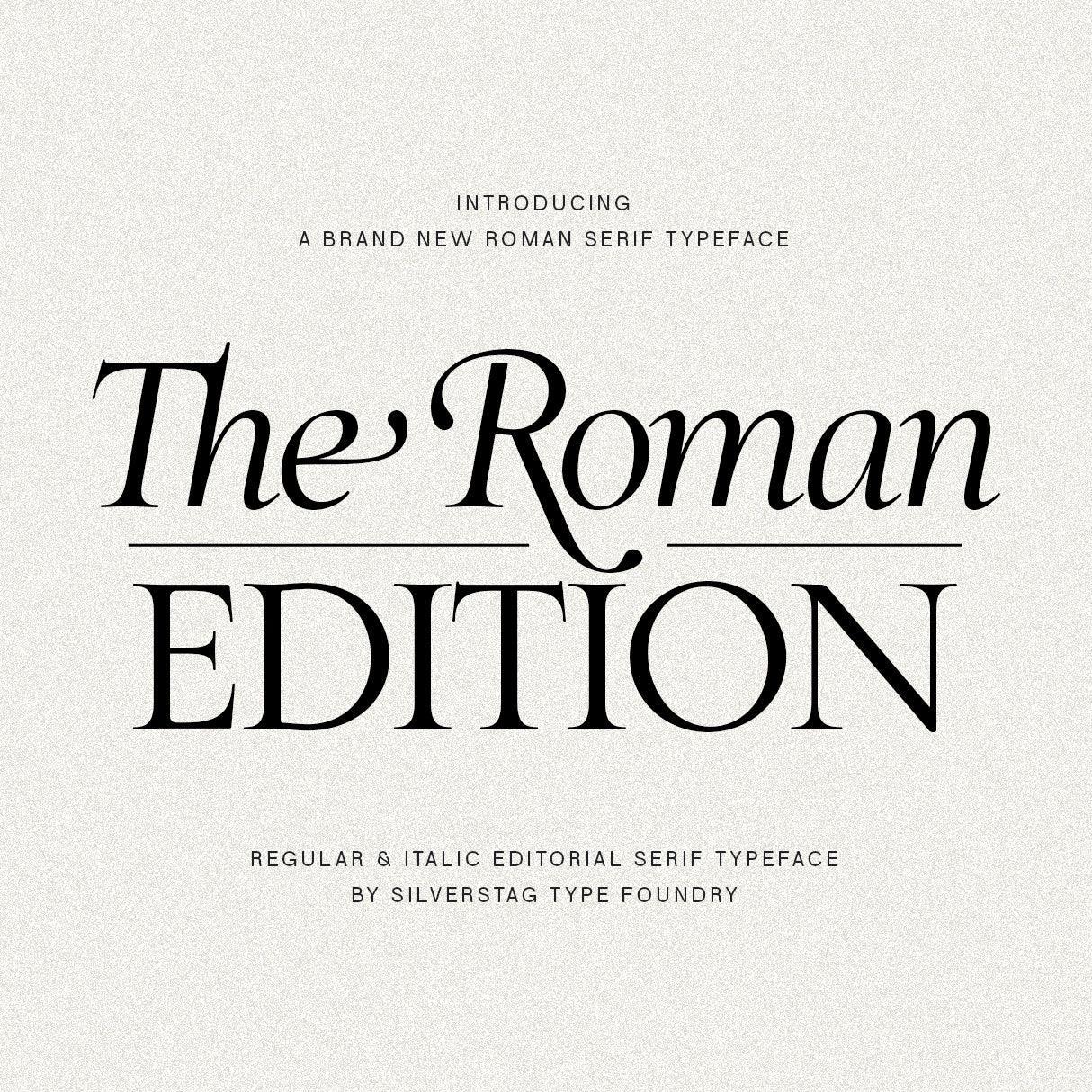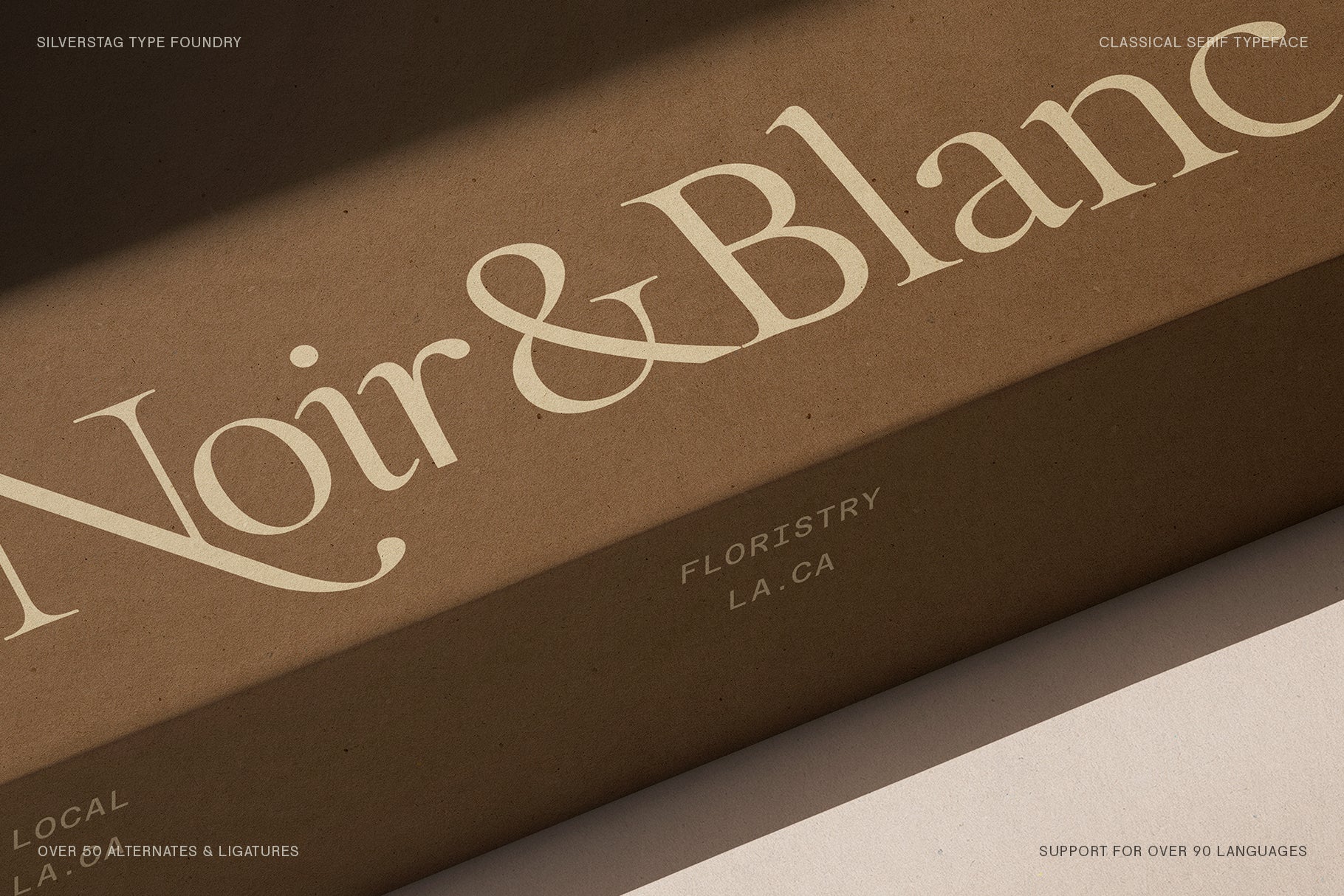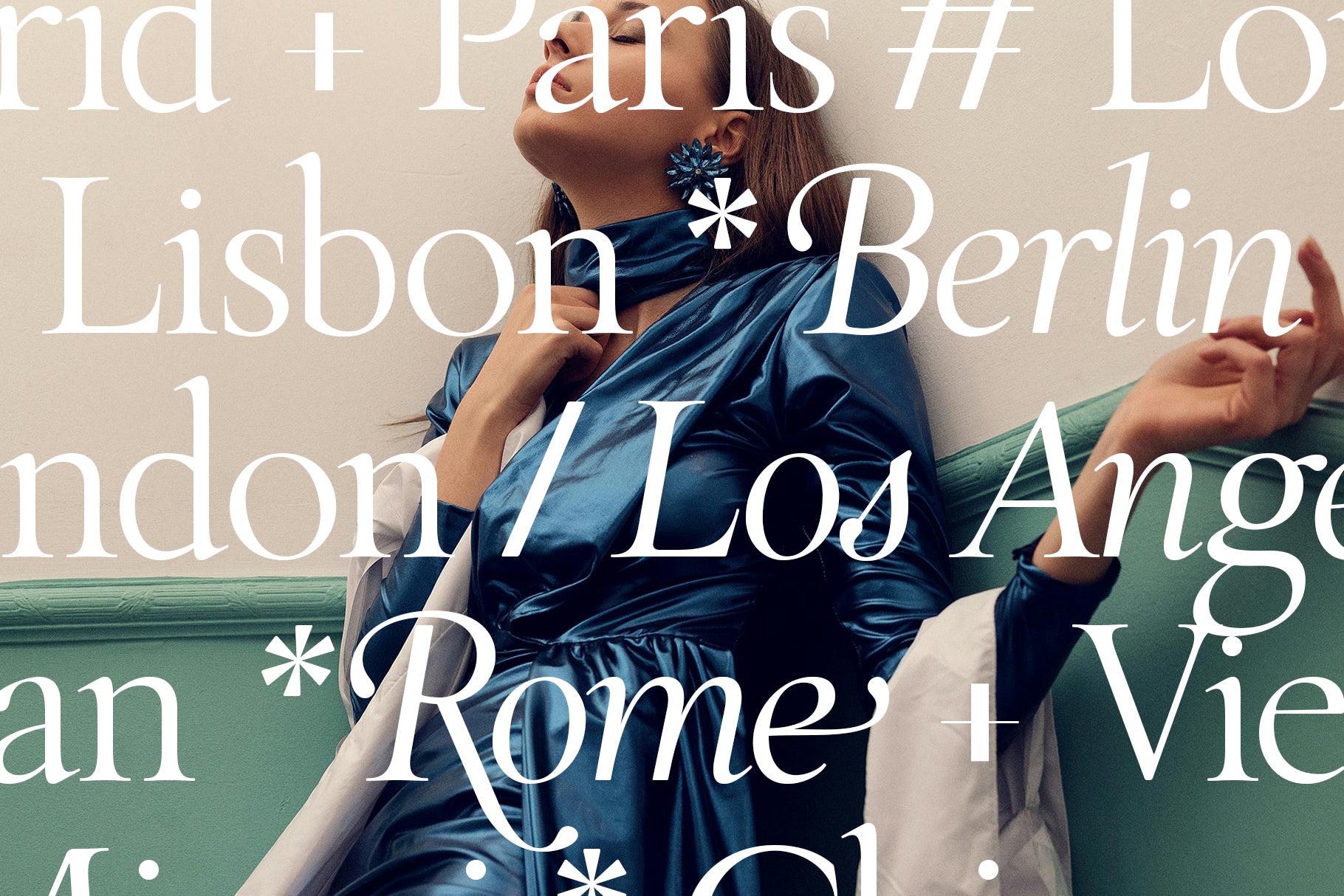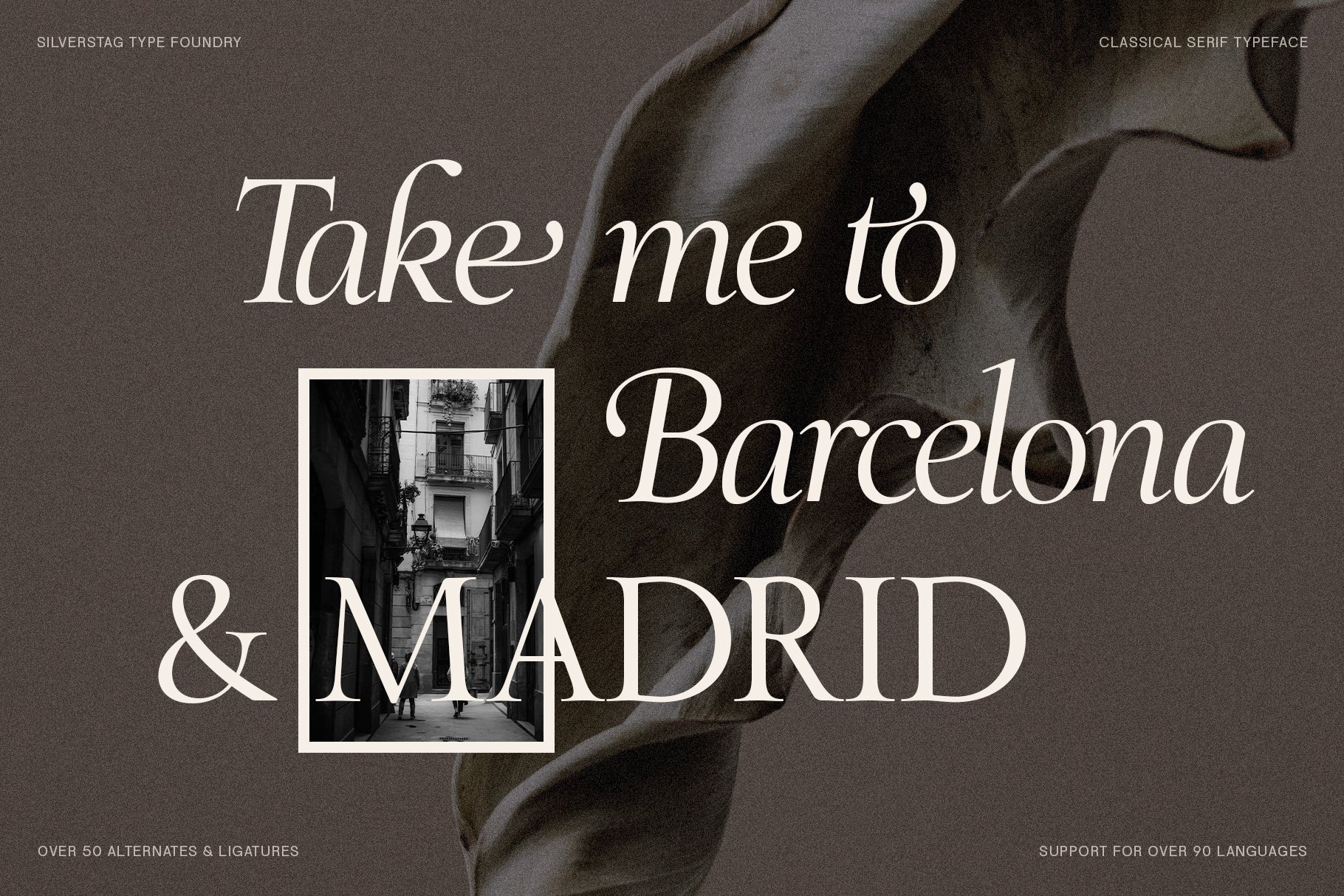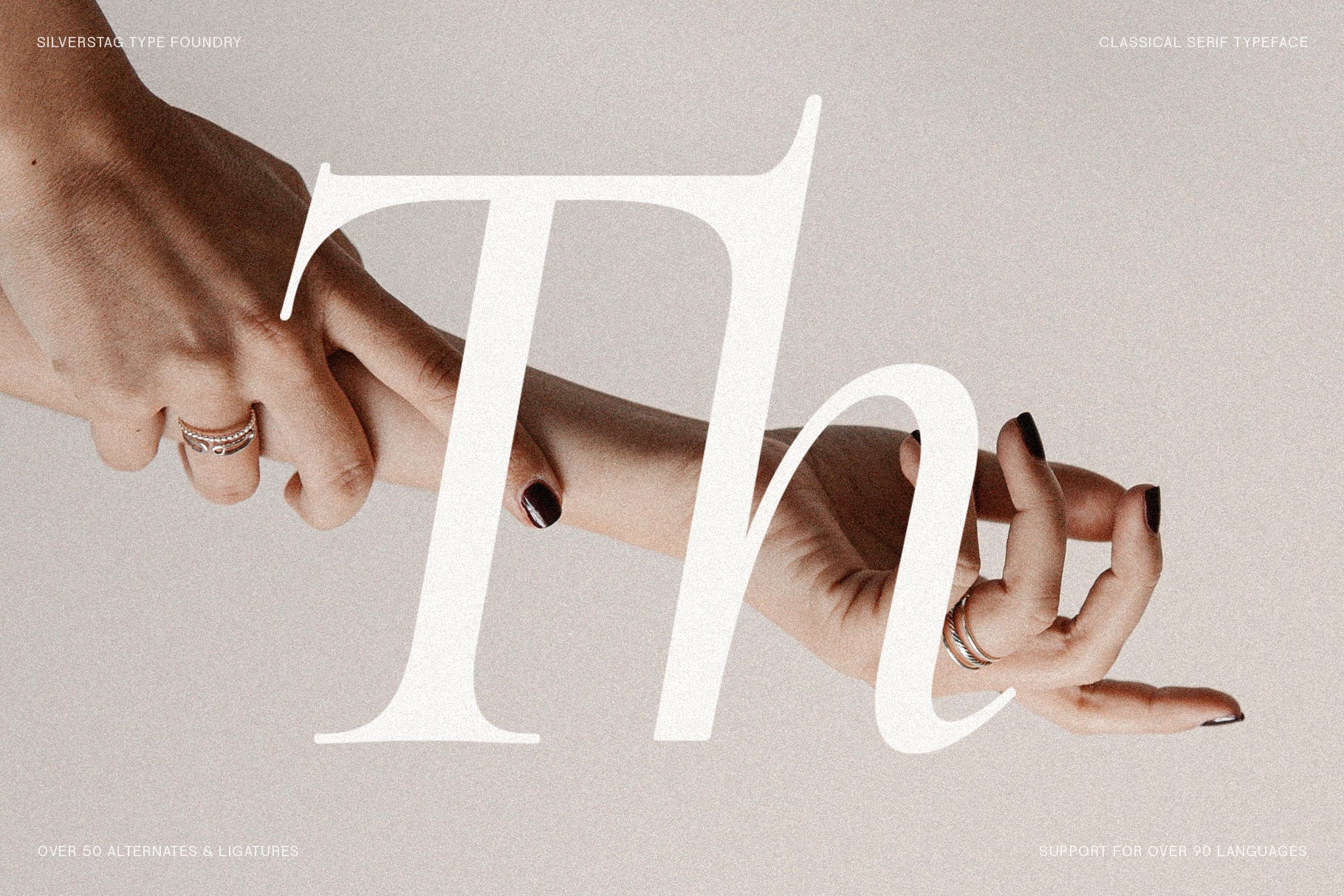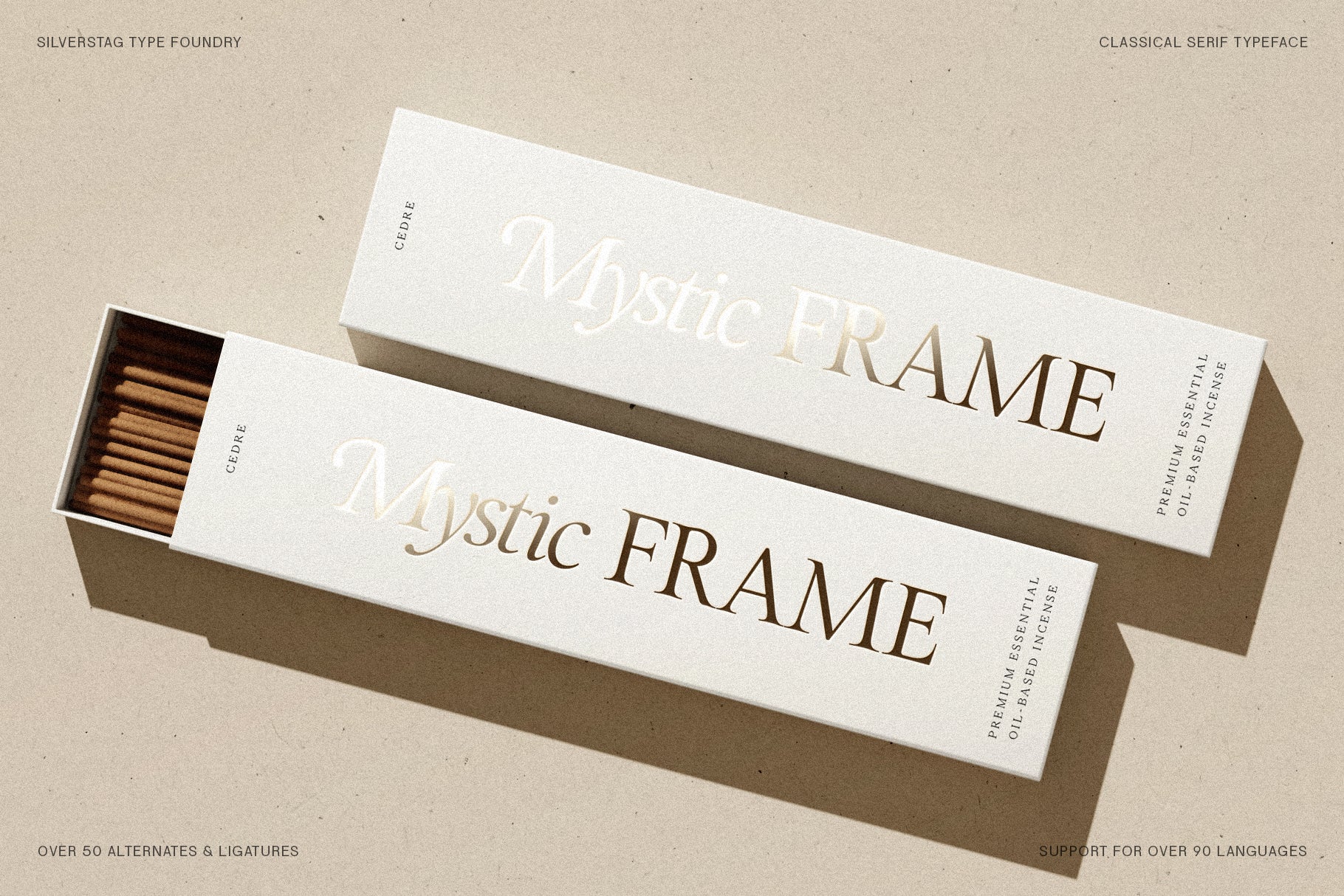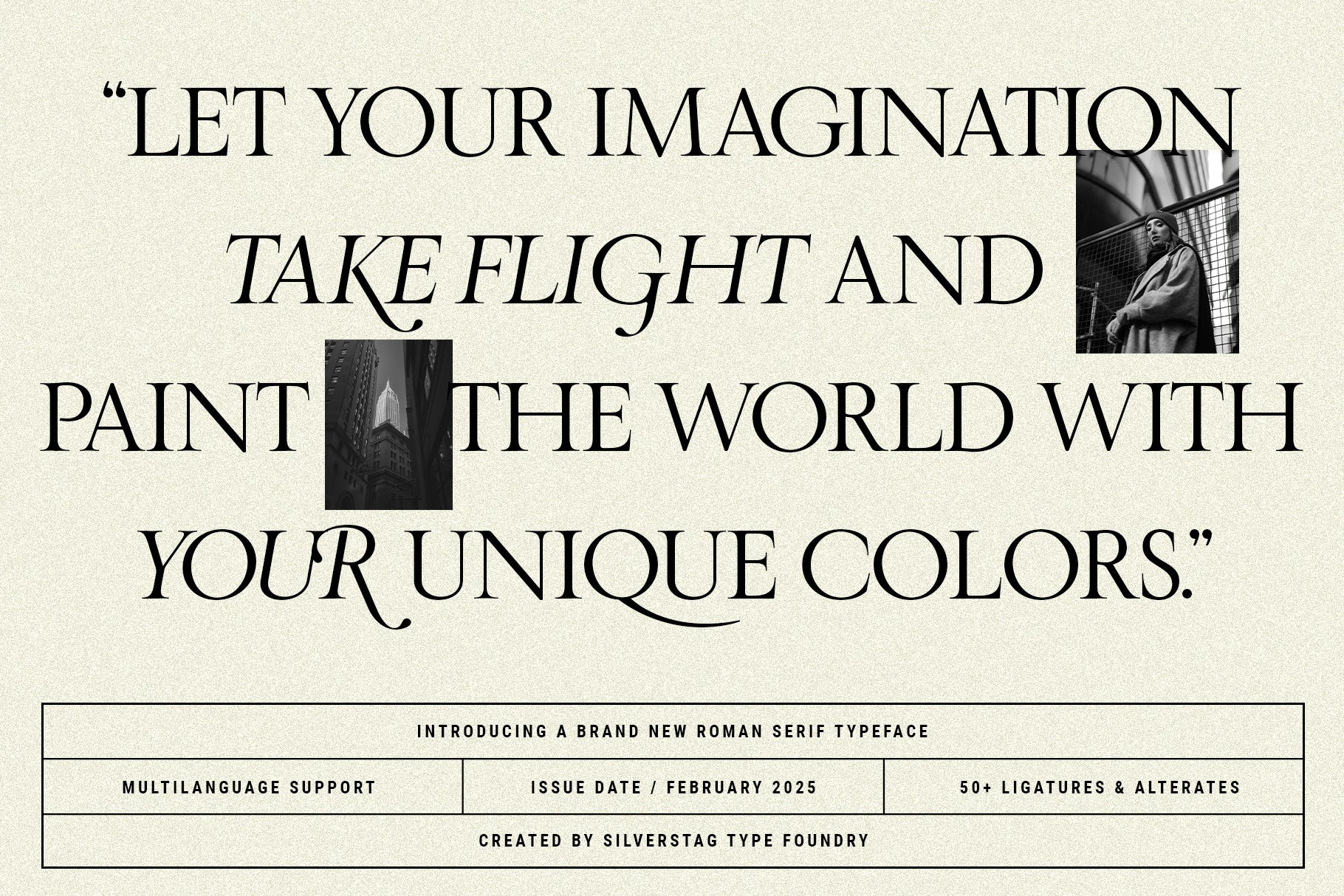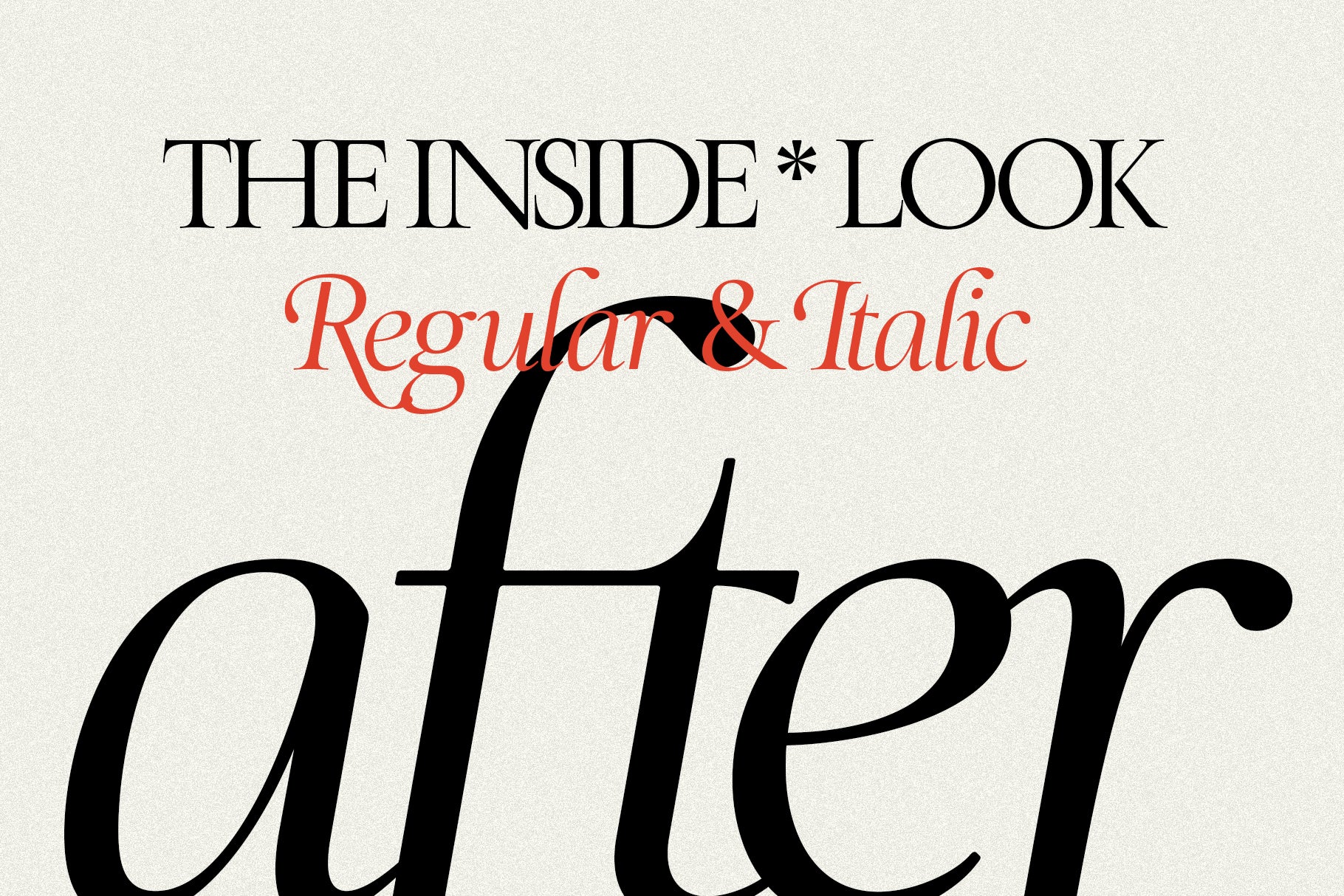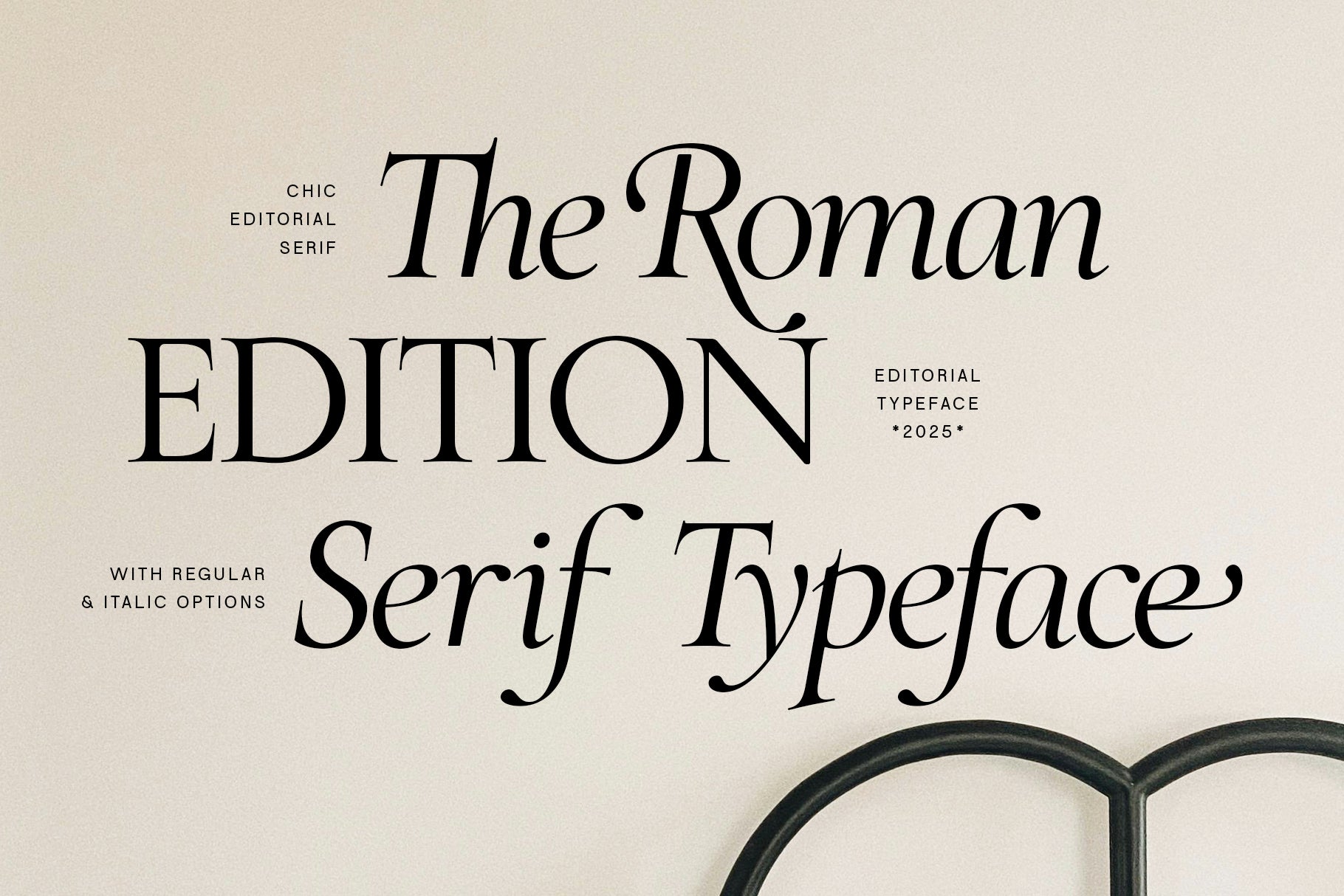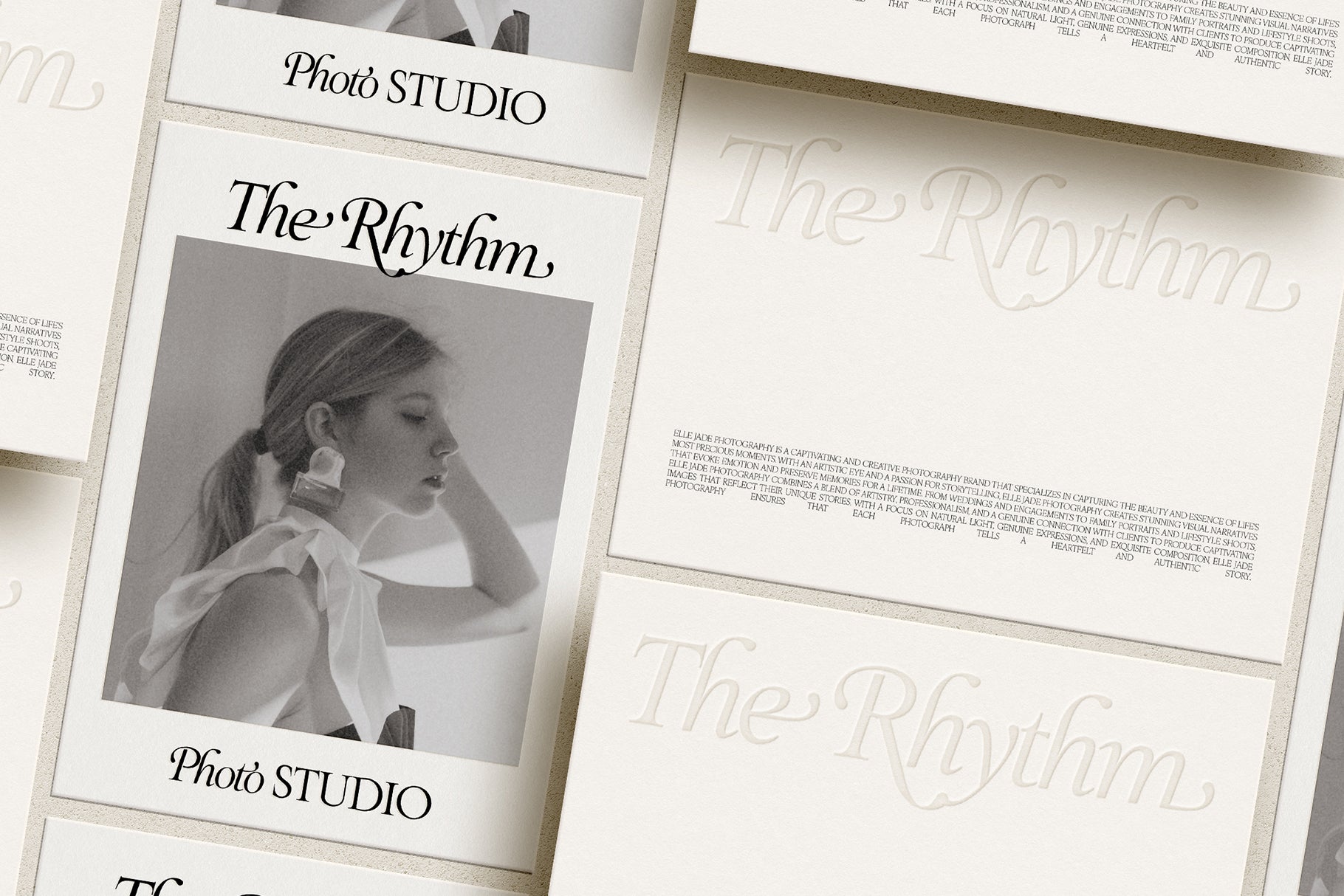
SLTF The Roman Edition - A Classical Serif Typeface
SLTF The Roman Edition – A Masterpiece of Classical Elegance & Editorial Sophistication
Step into a world of timeless typography with SLTF The Roman Edition, a typeface meticulously crafted to embody the rich heritage of classical Roman letterforms. Designed for those who appreciate refined aesthetics, this luxurious serif font blends historical inspiration with contemporary finesse, making it an essential tool for high-end branding, editorial design, luxury packaging, and sophisticated creative projects.
This font is available in two perfectly balanced styles:
• Regular – A crisp, poised serif that speaks with clarity, confidence, and timeless elegance. Perfect for magazine headlines, book titles, premium product branding, and corporate identity.
• Italic – A refined counterpart to the Regular style, featuring graceful swashes, ornate flourishes, and calligraphic endings. Designed for editorial highlights, invitations, luxury fashion campaigns, and artistic branding.
Powerful Features for Elevated Design
• Over 50 Ligatures & Alternates – Carefully crafted to create natural letter connections, offering a seamless handwritten effect with sophisticated typographic nuances.
• Editorial-Ready Aesthetic – Designed with luxury magazines, fine art publications, and book covers in mind, making it ideal for long-form text layouts and high-impact headlines.
• Flawless Optical Balance – Every character has been drawn to maintain visual consistency, ensuring perfect readability and elegance at any scale.
• Multi-Language Support – Covering over 90 languages, The Roman Edition is crafted to meet the needs of a global audience.
SLTF The Roman Edition is a classical serif typeface that combines historical Roman letterforms with contemporary design elements. It features two styles—Regular and Italic—along with over 50 ligatures and alternates, multi-language support, and an editorial-ready aesthetic, making it suitable for a variety of high-end design applications.